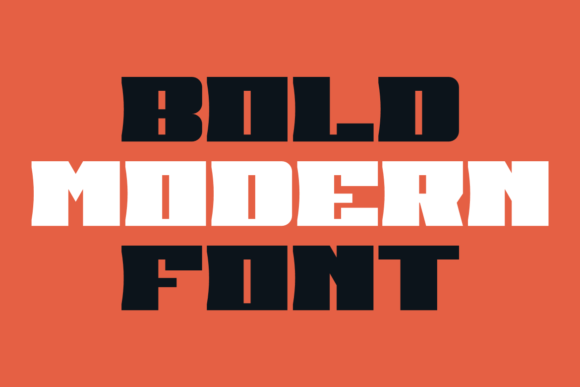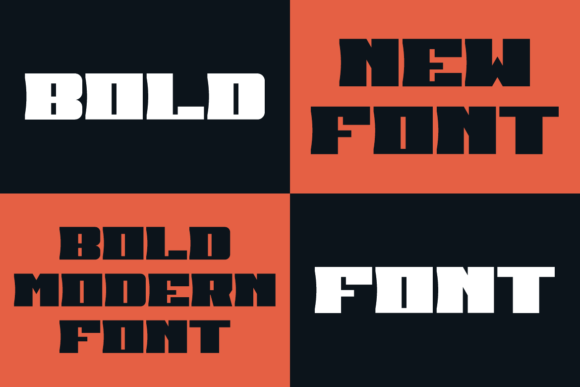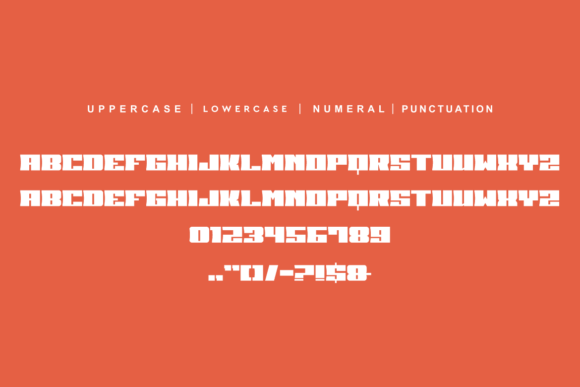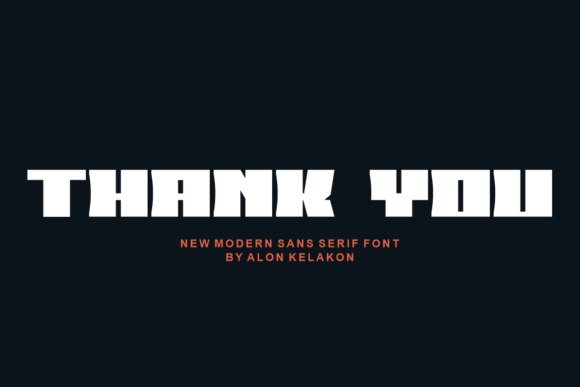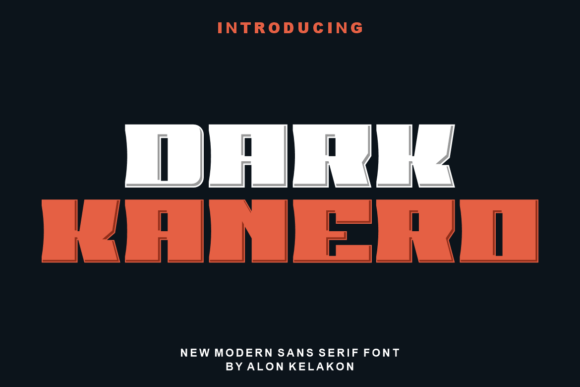
Unleash the Power of Dark Kanero Font: Elevate Your Designs with a Cool and Modern Sans Serif Display Font
Are you tired of using the same old fonts in your designs? Look no further! Dark Kanero Font is here to revolutionize the way you create. This cool and modern sans serif display font is perfect for designers and crafters who want to add a touch of sophistication and elegance to their projects. With its sleek lines and contemporary style, Dark Kanero Font is sure to take your designs to the next level.
What Makes Dark Kanero Font So Special?
Dark Kanero Font is a sans serif display font that exudes confidence and style. Its modern design makes it perfect for a wide range of projects, from branding and advertising to packaging and digital media. The font’s clean lines and simple shapes give it a versatile look that can be used in various contexts, from bold headlines to subtle body text.
One of the standout features of Dark Kanero Font is its ability to add a touch of sophistication to any design. Whether you’re working on a luxury brand or a creative project, this font is sure to impress. Its modern style and sleek lines make it perfect for designs that require a high level of professionalism and elegance.
Why Choose Dark Kanero Font for Your Projects?
There are many reasons why Dark Kanero Font is the perfect choice for your projects. Here are just a few:
• Unique and Modern Design: Dark Kanero Font has a unique and modern design that sets it apart from other fonts. Its sleek lines and simple shapes make it perfect for designs that require a high level of sophistication and elegance.
• Versatile: This font is versatile and can be used in a wide range of projects, from branding and advertising to packaging and digital media.
• Easy to Read: Despite its modern style, Dark Kanero Font is easy to read, making it perfect for body text and headlines.
• Confident and Stylish: This font exudes confidence and style, making it perfect for designs that require a high level of professionalism and elegance.
How to Use Dark Kanero Font in Your Projects
Using Dark Kanero Font in your projects is easy. Here are a few tips to get you started:
• Pair it with Other Fonts: Dark Kanero Font pairs well with other fonts, making it easy to create a unique and stylish typography combination.
• Use it for Headlines and Titles: This font is perfect for headlines and titles, where its modern style and sleek lines can really shine.
• Experiment with Different Sizes and Colors: Don’t be afraid to experiment with different sizes and colors to find the perfect combination for your design.
Who Can Benefit from Using Dark Kanero Font?
Dark Kanero Font is perfect for a wide range of designers and crafters, including:
• Graphic Designers: Graphic designers can use Dark Kanero Font to create stunning visual designs, from branding and advertising to packaging and digital media.
• UI/UX Designers: UI/UX designers can use this font to create modern and stylish user interfaces that are both functional and visually appealing.
• Crafters and Makers: Crafters and makers can use Dark Kanero Font to add a touch of sophistication and elegance to their handmade projects, from jewelry and crafts to DIY tutorials and blogs.
In conclusion, Dark Kanero Font is a cool and modern sans serif display font that is perfect for designers and crafters who want to add a touch of sophistication and elegance to their projects. With its sleek lines and contemporary style, this font is sure to take your designs to the next level. So why wait? Add Dark Kanero Font to your projects today and experience the difference for yourself!